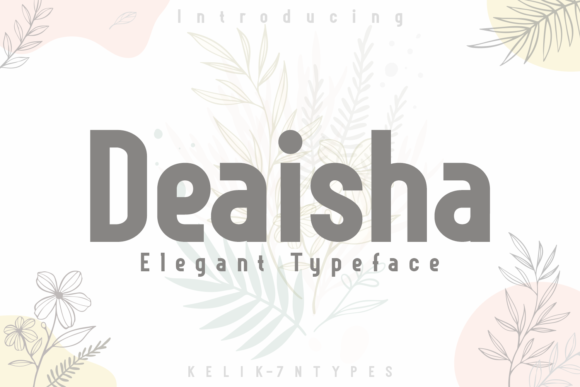
Discover the Elegance of Deaisha Font: A Versatile Sans Serif for Every Design Need
In the world of typography, finding the perfect font that balances boldness with elegance can be a daunting task. However, for those in search of a typeface that exudes both confidence and sophistication, look no further than the Deaisha Font. This stunning sans serif font has been making waves in the design community for its neat, simple style, and remarkable versatility. Whether you’re a seasoned designer or a crafting enthusiast, Deaisha Font is poised to become your new go-to choice for a wide array of design projects.
The Characteristics of Deaisha Font
Deaisha Font is characterized by its bold, yet elegantly simple sans serif design. This font’s clean lines and uncluttered appearance make it incredibly versatile, suitable for use in a myriad of design contexts. From branding and advertising to web design and crafting projects, Deaisha’s neat and straightforward style ensures that your message is conveyed with clarity and impact.
Why Choose Deaisha Font?
So, what sets Deaisha Font apart from the countless other typefaces available today? Here are a few compelling reasons why designers and crafters alike are falling in love with this remarkable font:
- Versatility: Deaisha’s simple yet bold design makes it perfectly adaptable to a wide range of projects. Whether you’re working on a corporate brand identity, a personal craft project, or a digital application, Deaisha Font fits seamlessly into any context.
- Elegance: Despite its bold nature, Deaisha maintains an air of elegance that is hard to find in sans serif fonts. This makes it an excellent choice for designs that require a touch of sophistication.
- Readability: The clean and uncomplicated structure of Deaisha Font ensures high readability, even at smaller sizes. This is particularly beneficial for web design and digital media, where legibility is paramount.
- Timeless Appeal: Unlike trendy fonts that may quickly become outdated, Deaisha’s classic appeal ensures that your designs remain relevant and stylish for years to come.
Applications of Deaisha Font
The applications of Deaisha Font are virtually limitless. Here are some popular uses for this versatile typeface:
- Branding and Logo Design: Create a lasting impression with Deaisha’s bold and elegant letters, perfect for logos, business cards, and brand guidelines.
- Web Design: Enhance your website’s typography with Deaisha, ensuring a professional and cohesive look that captivates your audience.
- Digital Marketing Materials: From social media graphics to email newsletters, Deaisha Font helps your marketing materials stand out with its unique blend of boldness and elegance.
- Crafting and DIY Projects: Add a professional touch to your crafting projects, such as handmade cards, scrapbooking, and other DIY endeavors, with the sophisticated look of Deaisha Font.
How to Get the Most Out of Deaisha Font
To truly leverage the potential of Deaisha Font, consider the following tips:
- Experiment with Sizes: Deaisha’s bold nature makes it effective at various sizes. Play around with different font sizes to achieve the desired impact in your designs.
- Combine with Other Fonts: While Deaisha is stunning on its own, pairing it with complementary fonts can add depth and interest to your designs. Look for fonts that contrast with Deaisha’s sans serif style for the best results.
- Play with Colors: The versatility of Deaisha Font extends to its color palette. Experiment with different colors to find the perfect match for your brand or project’s aesthetic.
| Font Name | Deaisha Font |
| Author | Kelik – 7NTypes |
Deaisha Font is more than just a typeface; it’s a design companion that offers both style and substance. Its unique blend of boldness and elegance, combined with its versatility and readability, makes it an indispensable tool for designers and crafters alike. Whether you’re embarking on a new design project or looking to refresh your brand’s identity, Deaisha Font is sure to exceed your expectations. Discover the elegance and potential of Deaisha Font today, and elevate your designs to new heights of sophistication and impact.